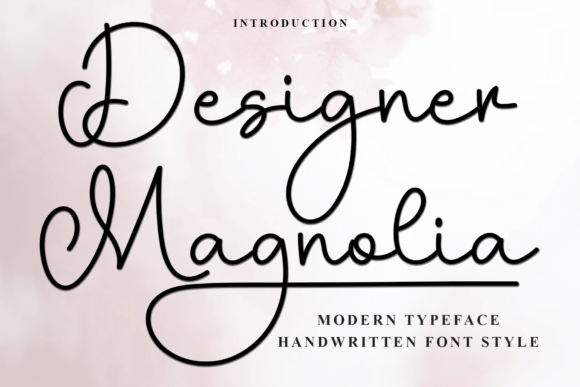
Adding a Touch of Elegance: The Magic of Designer Magnolia Font
Have you ever been brainstorming a design project, and suddenly, the perfect font pops into your mind? For designers, those ‘aha’ moments are what make our jobs truly rewarding. And, for those who love handwritten fonts, the magic often begins with the search for the perfect script.
Enter the stunning Designer Magnolia Font, a stylish and elegant script font designed to elevate any design project. Whether you’re creating wedding invitations, thank you cards, or business logos, Designer Magnolia Font adds a touch of sophistication and charm. Its versatility and beauty make it an invaluable tool for designers looking to add a handwritten touch to their work.
Designer Magnolia Font Key Features
- Font Family: Designer Magnolia, a beautiful and elegant script font
- Font Size: Designed to work well in various sizes, from 12pt to 72pt, with optimal readability
- Resolution: Optimized for print and digital use at 300 DPI and 72 DPI respectively
- Unique Characteristics: Hand-drawn design, smooth connections, and intricate details for a premium look
- Font Weight: Includes multiple weights, from Light to Bold, for flexibility in typography
Designer Magnolia Font Review
First off, I love the elegant and classic feel that Designer Magnolia Font brings to any design project. The intricate details and subtle curves of the font make it perfect for creating a sophisticated and refined look ✨. The font is also highly customizable, with a wide range of weights and styles to choose from, making it suitable for various design applications.
- The font is highly versatile and can be used for both digital and print media.
- The large character set makes it suitable for a wide range of languages.
- The font is also highly legible, making it perfect for body text and headings.
Overall, I think Designer Magnolia Font is a great choice for designers who want to create a classic and elegant look. While it may have a few limitations, the font’s versatility and customizability make it a great addition to any design toolkit.
For the most effective use of the Designer Magnolia font, use it for titles, headings, and emphasis. It pairs well with clean, minimalist designs.
Brand logos and marketing materials
Wedding and event planning
Designers can also experiment with pairing the font with other elegant or modern fonts for a unique look.
Alternatives to Designer Magnolia Font
Great Vibes Font is a beautiful, elegant script font that is perfect for creating a luxurious and sophisticated look. It is ideal for use in invitations, wedding stationery, and other high-end designs. Compared to Designer Magnolia Font, Great Vibes Font has a more refined and delicate feel, making it suitable for a wider range of applications.
Carolyna Pro Font is a modern script font that is designed for use in both digital and print media. It has a unique, hand-drawn feel that makes it perfect for creating a personal and unique brand identity. Compared to Designer Magnolia Font, Carolyna Pro Font has a more modern and edgy feel, making it suitable for use in a variety of creative fields.
Alex Brush Font is a beautiful, elegant script font that is perfect for creating a classic and sophisticated look. It is ideal for use in high-end designs such as wedding invitations, luxury branding, and fine art prints. Compared to Designer Magnolia Font, Alex Brush Font has a more traditional and refined feel, making it suitable for use in more formal applications.
Dancing Script Font is a fun and playful script font that is perfect for creating a lively and energetic look. It is ideal for use in designs such as party invitations, social media graphics, and advertising materials. Compared to Designer Magnolia Font, Dancing Script Font has a more casual and whimsical feel, making it suitable for use in a variety of creative and informal applications.